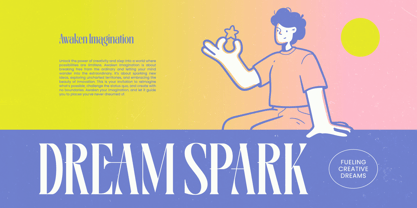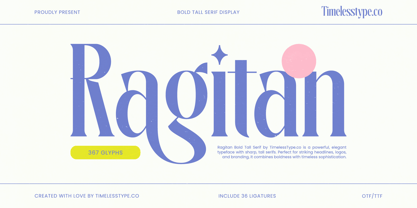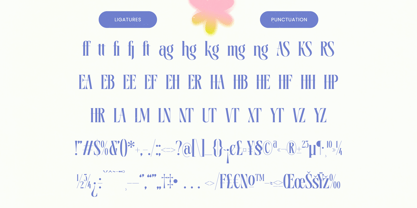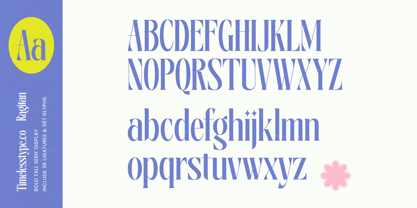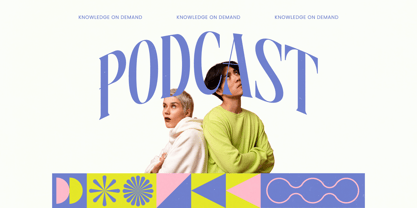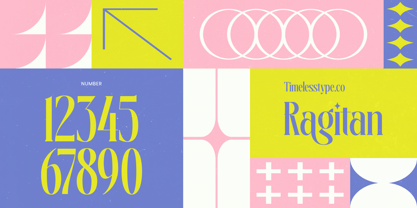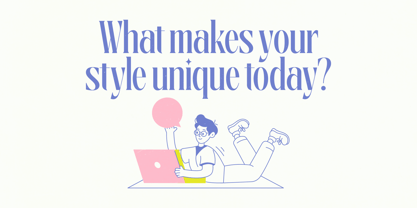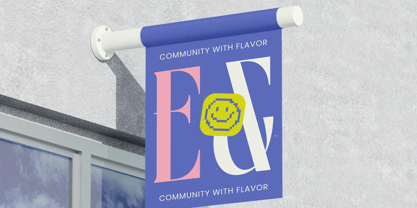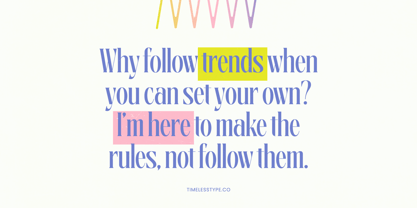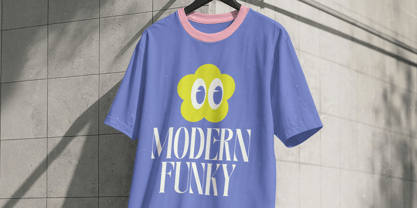
Ragitan
von Timelesstype Studio
Die Schriftfamilie Ragitan wurde von Heru Utama Putra entworfen und von Timelesstype Studio veröffentlicht. Ragitan enthält 2 Stile und Familienpaketoptionen. Mehr über diese Familie
Ragitan is a bold tall serif display built for impact. The sharp vertical proportions, sculpted contrast, and unique decorative cuts give it a modern editorial punch while maintaining a timeless serif refinement. Perfect for standout headlines, luxury branding, packaging, fashion posters, and high-end visual identities, Ragitan delivers that clean-but-dramatic aesthetic designers chase. With 36 ligatures and 367 glyphs, it offers plenty of stylistic range to craft elegant, expressive typography that looks instantly premium.
Designer: Heru Utama Putra
Foundry: Timelesstype Studio